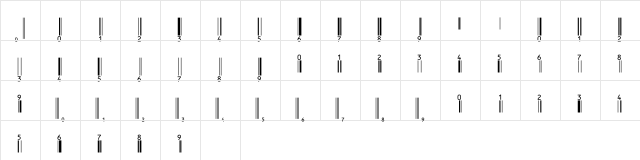
UpcEBwrP36Tt Normal
Design Context for UpcEBwrP36Tt Typeface
UpcEBwrP36Tt is a composed and adaptable typeface that performs quietly and consistently across a wide range of design contexts.